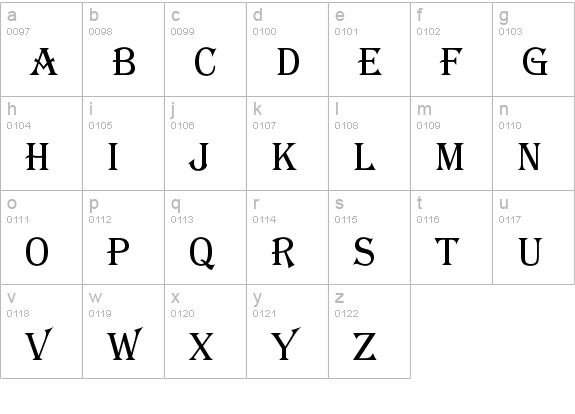
Algerian Basic D font is a stylish and versatile typeface that exudes elegance and sophistication. Featuring intricate details and sharp edges, this font is perfect for adding a touch of class to your designs. Its unique design makes it stand out and grab attention, making it ideal for a wide range of projects. What makes Algerian Basic D font even more appealing is that it is available for free download at FontsMarket.com. This means you can easily access this gorgeous font without having to spend a penny. Whether you're working on a personal project or a professional assignment, Algerian Basic D font is sure to elevate your design and leave a lasting impression. Download it today and add a touch of elegance to your creations!